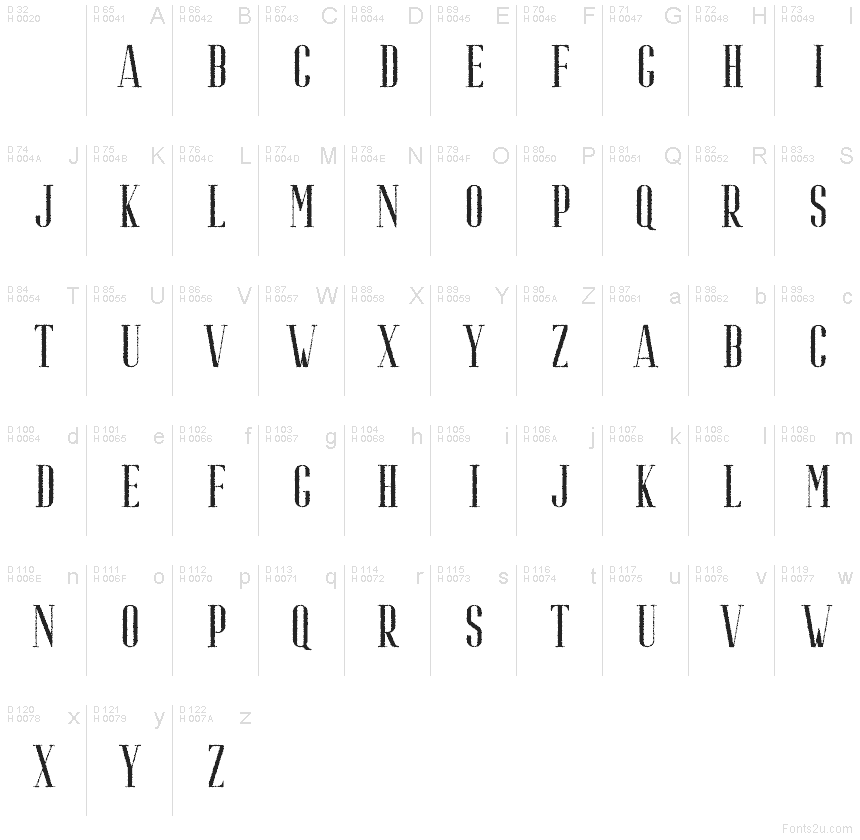
Riffle Rough Regular Demo
Riffle Rough font is a distressed serif typeface by Craft Supply Co.. The condensed font offers a vintage aesthetic with its rugged appearance that evokes nostalgia within any layout. The uneven eroded texture adds character and makes Riffle Rough suitable for designs that need an aged visual effect.
Designers can download this free serif font and test it on their personal projects or clients’ projects. It has many creative uses in headings, titles, quotes, branding, packaging design, magazines, book covers, apparel design (t-shirts), restaurant menus and signage. Websites related to food vintage cars or gaming can benefit from this beautiful typography’s vibe as well.